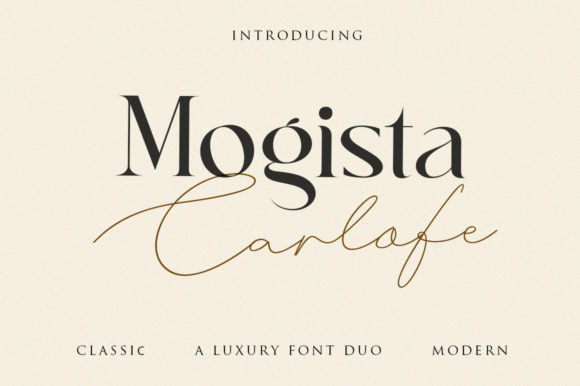
Introduce your designs with Mogista Carlofe Font, a remarkable duo font (script and serif) that takes creativity to the next level. Crafted by the talented Mordex Studio, this font duo is the epitome of branded elegance and friendliness.
With its graceful curves and timeless character, Mogista Carlofe's script font exudes an air of sophistication, evoking the beauty of handwritten calligraphy. It's perfect for adding a personal touch to your designs, whether it's an invitation, a logo, or a social media post.
The serif font, with its sharp edges and refined details, brings a touch of classicism and stability to your projects. Its strong character and high readability make it ideal for business cards, brochures, and headlines that demand attention.
Together, the script and serif fonts of Mogista Carlofe create a harmonious blend that adds depth and visual interest to your designs. They complement each other seamlessly, allowing you to mix and match them effortlessly to create a cohesive and professional look.
But Mogista Carlofe is more than just a versatile font duo. It's a gateway to a world of creativity, a tool that empowers you to express yourself and captivate your audience.
Imagine the warmth and joy of a Christmas card adorned with Mogista Carlofe's elegant script, conveying your heartfelt greetings with a personal touch. Or envision a stunning wedding invitation, where the serif font's timeless beauty adds a touch of formality and romance to your special day.
The possibilities are endless with Mogista Carlofe. Let your imagination soar and discover the endless ways you can use this font duo to create designs that leave a lasting impression.
Don't settle for ordinary fonts. Embrace the artistry and elegance of Mogista Carlofe, and watch your designs transform into masterpieces that speak volumes about your creativity and passion.